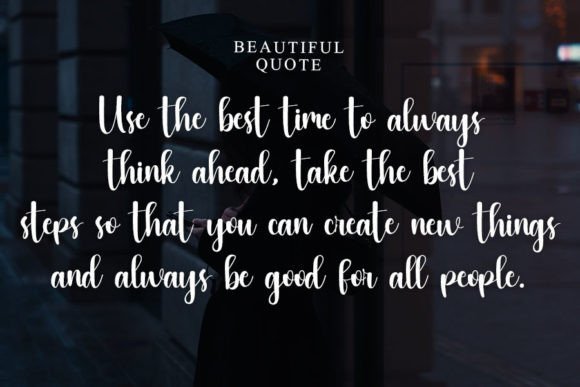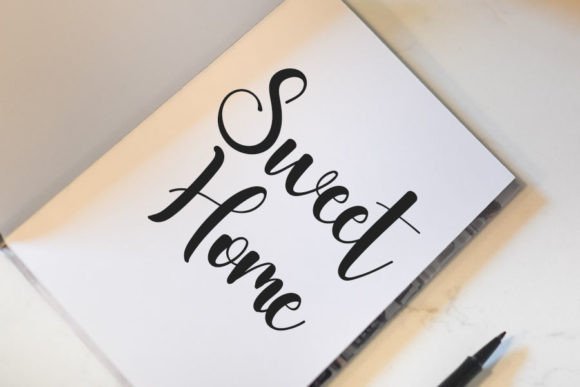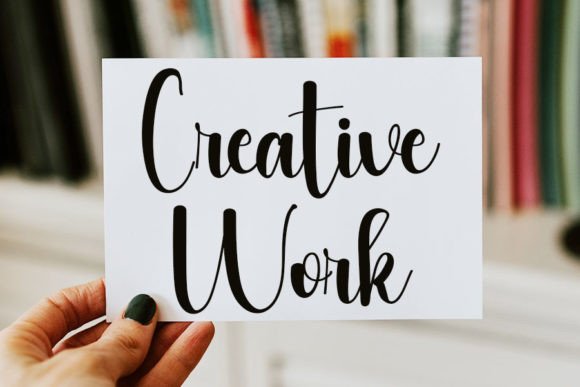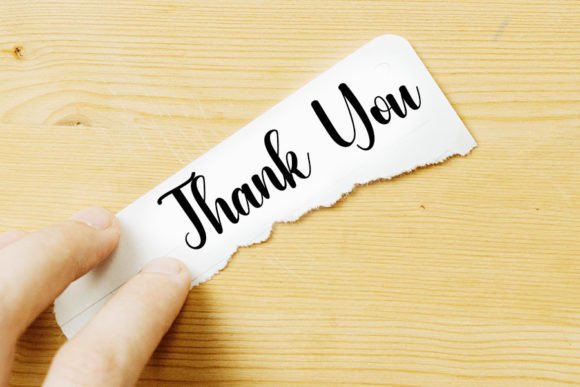
Monday Font
Modern Elegance: Introducing Monday Font
Monday Font is a contemporary handwritten typeface that combines timeless calligraphic influence with a fresh, trendy flair. Designed with impeccable balance and smooth curves, this font brings grace and sophistication to a wide variety of creative projects. Whether you’re working on a brand identity, a wedding invitation, or an eye-catching social media post, this typeface will make your design stand out effortlessly.
Where Can You Use Monday Font?
Thanks to its versatility, Monday Font is suitable for a broad range of applications. It’s particularly effective for:
• Logos and branding
• Wedding and event invitations
• Product packaging and labels
• Social media content
• Blog headers and website design
• Posters, flyers, and advertisements
This handwritten font strikes a perfect balance between readability and personality. While many handwritten fonts can feel too informal or inconsistent, Monday Font maintains structure and legibility without losing its expressive charm.
Features That Set Monday Font Apart
What makes Monday Font a reliable choice for creatives is not just its appearance, but also its technical features. It includes:
• A full set of uppercase and lowercase letters
• Numbers and punctuation
• Multilingual support
• Smooth ligatures and natural-looking alternates
Why Designers Choose Monday Font
Transitioning between various design needs is seamless with MondayFont. For instance, a logo that uses this font will feel both modern and handcrafted. Similarly, adding it to a packaging design immediately communicates a sense of care, quality, and creativity. If you’re creating Instagram quotes or promotional graphics, this font will make them look professionally done with minimal effort.
Moreover, pairing MondayFont with a minimalist sans-serif typeface can result in an elegant and trendy layout. This font is also scalable and clean, so it works well in both small and large formats.
Make Every Design Feel Special
Fonts do more than decorate—they tell a story. MondayFont tells a story of sophistication, creativity, and modern artistry. No matter your niche—be it fashion, lifestyle, beauty, food, or stationery—this font brings an elevated look to your project.